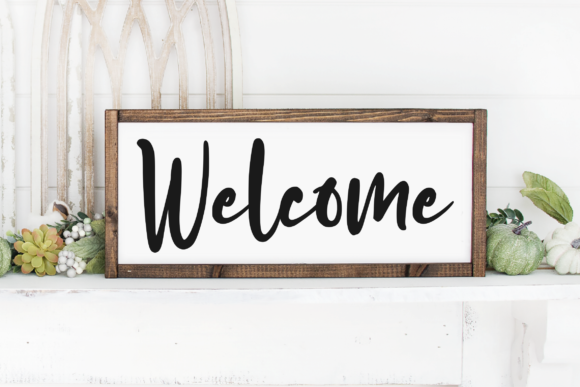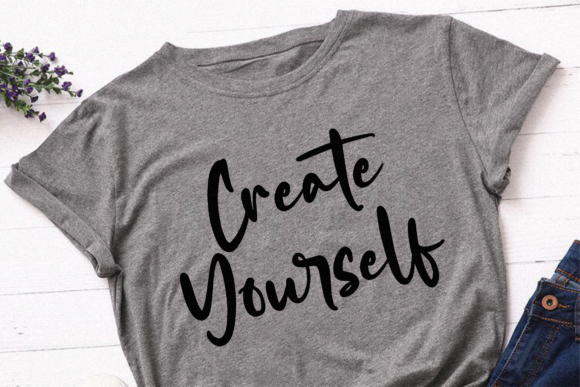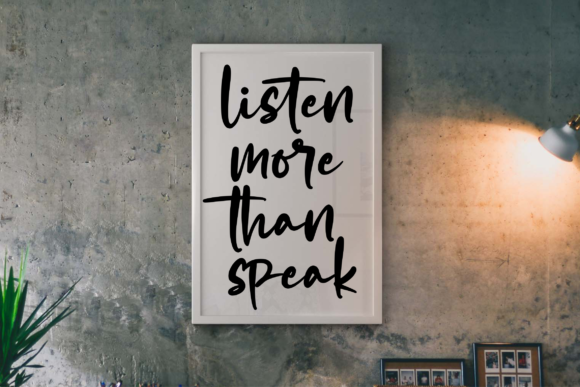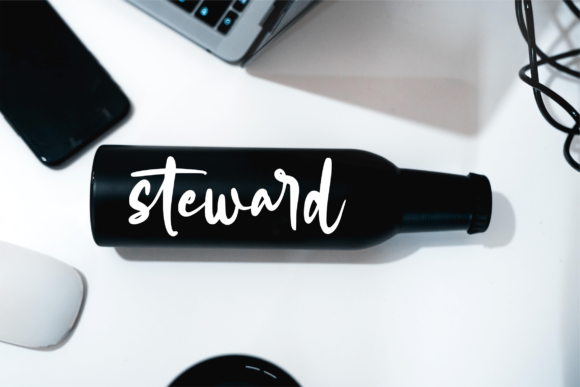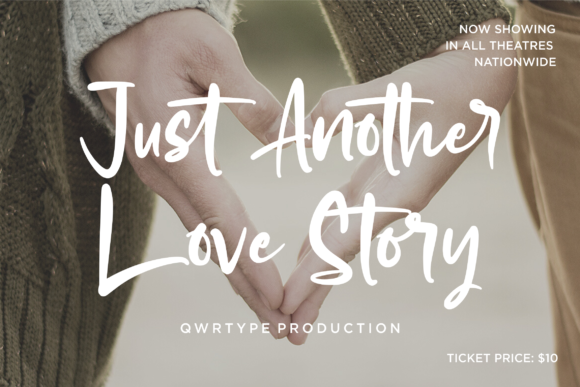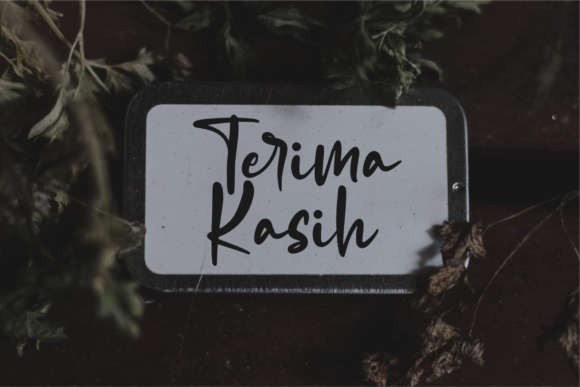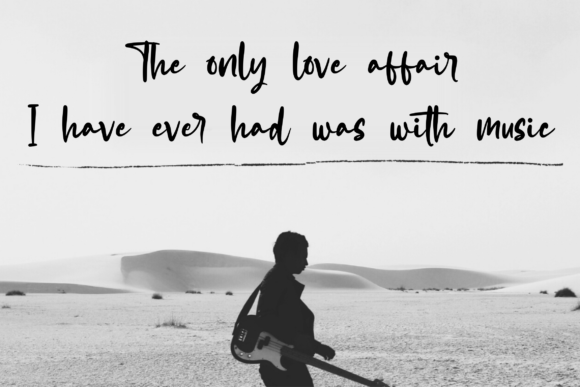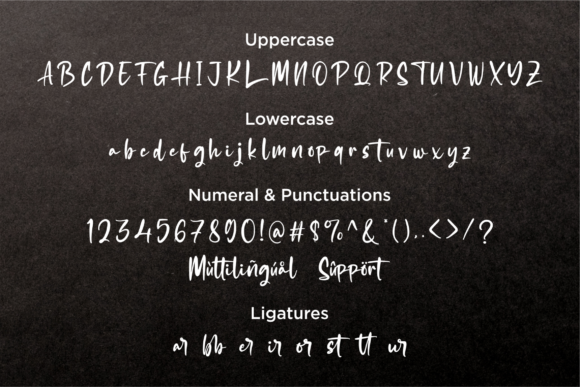
Halfbritish Font
Halfbritish is an elegant and refined script font that exudes a sense of style and delicacy. Its sophisticated design makes it a versatile choice for various design projects, ranging from product packaging and branding projects to magazine covers and social media posts. With its graceful curves and smooth lines, Halfbritish adds an air of elegance and charm to any text it adorns.
This font is particularly well-suited for weddings, capturing the romantic essence of such special occasions. Its intricate details and graceful strokes lend themselves beautifully to invitations, place cards, and other wedding-related materials, infusing them with a touch of timeless elegance.
Furthermore, Halfbritish can be used to add a touch of flair to backgrounds, allowing words to stand out and make a statement. Whether it’s used for titles, headlines, or captions, this font effortlessly commands attention and adds a touch of sophistication to your designs.
With its versatility and delicate charm, Halfbritish is a font that can elevate a wide range of projects, making them more visually appealing and engaging. Its ability to convey both style and refinement makes it a valuable asset for any designer seeking to create impactful and memorable visuals.